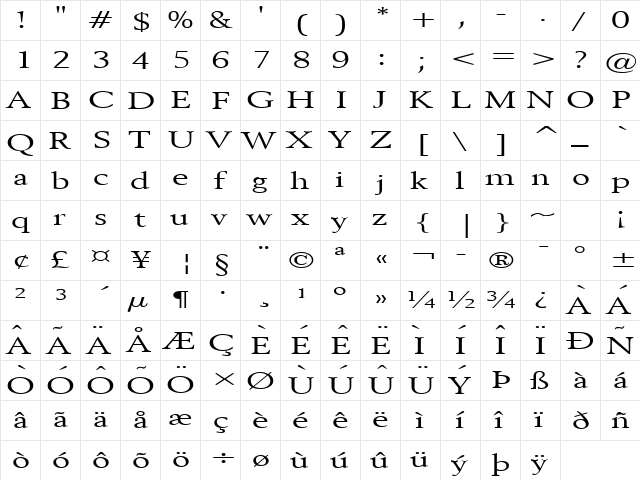
Revive 8 Extended Normal
Design Context for Revive 8 Extended Typeface
Revive 8 Extended is a composed and adaptable typeface that performs quietly and consistently across a wide range of design contexts.
Pro Tip: Use Revive 8 Extended in both headline and body roles to test its range before committing to a single application.